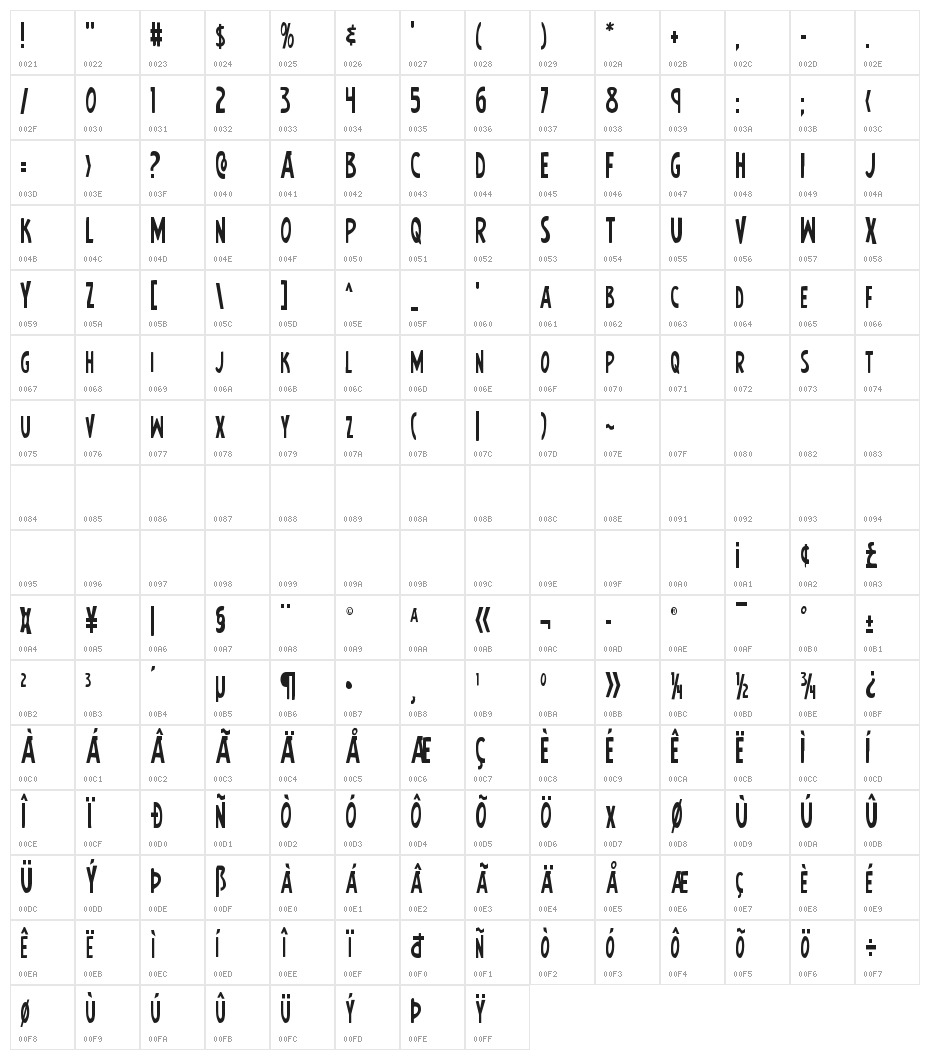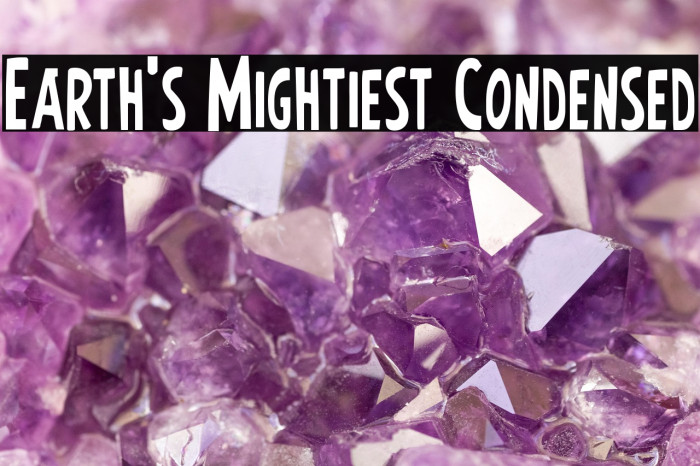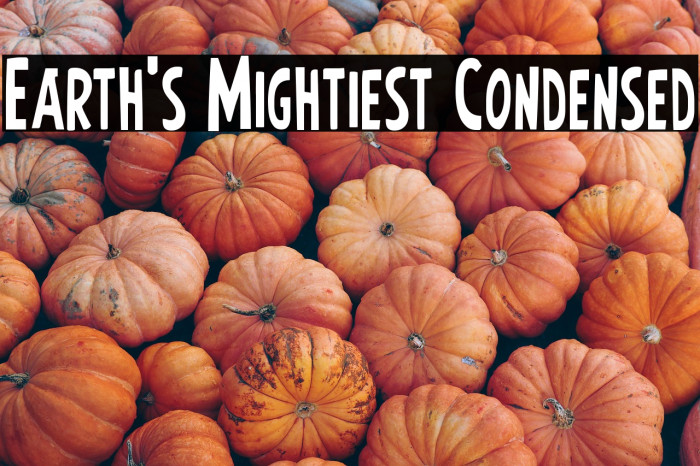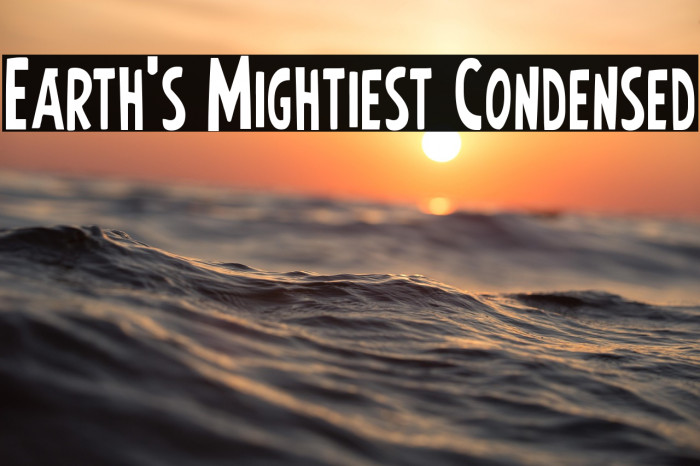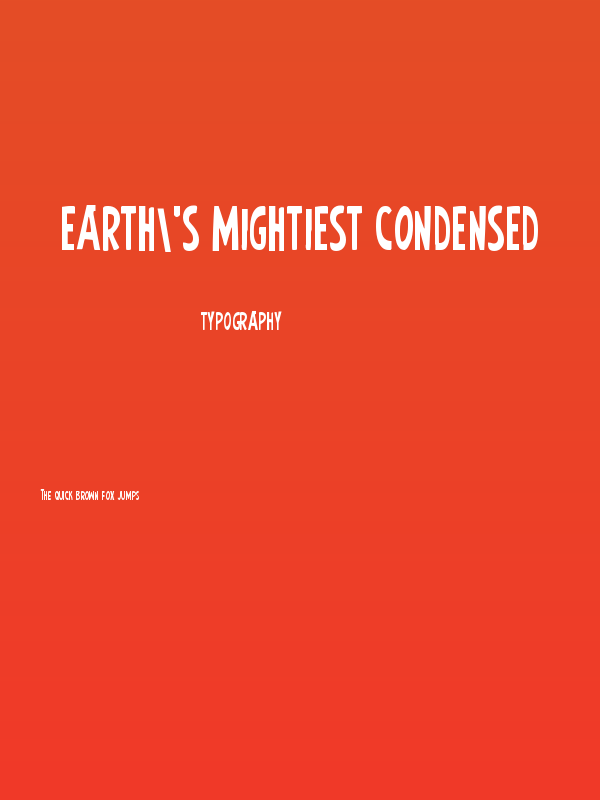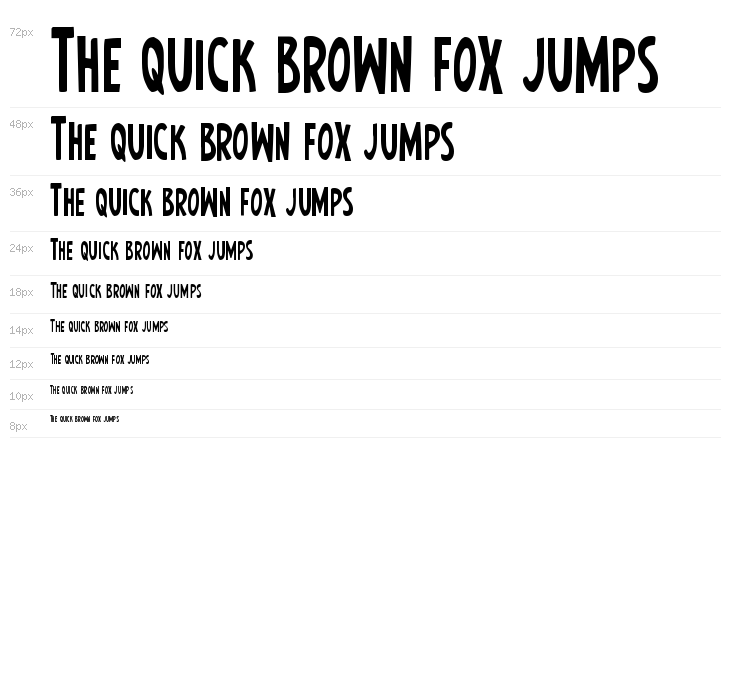
Earth's Mightiest Condensed Font
Earth's Mightiest Condensed Description
This font features a bold and condensed style with a playful and dynamic appearance. The characters are tall and narrow, with a slight curve that adds a sense of movement and energy. The uppercase letters are prominent and commanding, while the lowercase letters maintain a consistent height, enhancing readability. The numbers and special characters are well-integrated, matching the overall aesthetic. This font's unique style makes it suitable for attention-grabbing headlines and creative projects.
| Proposed Projects | Ideal for comic book titles, posters, branding, and any project needing a bold, energetic look. |